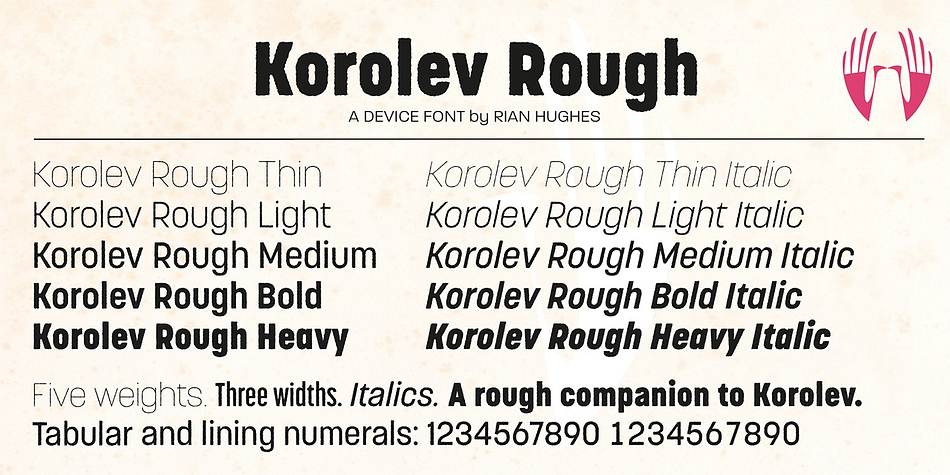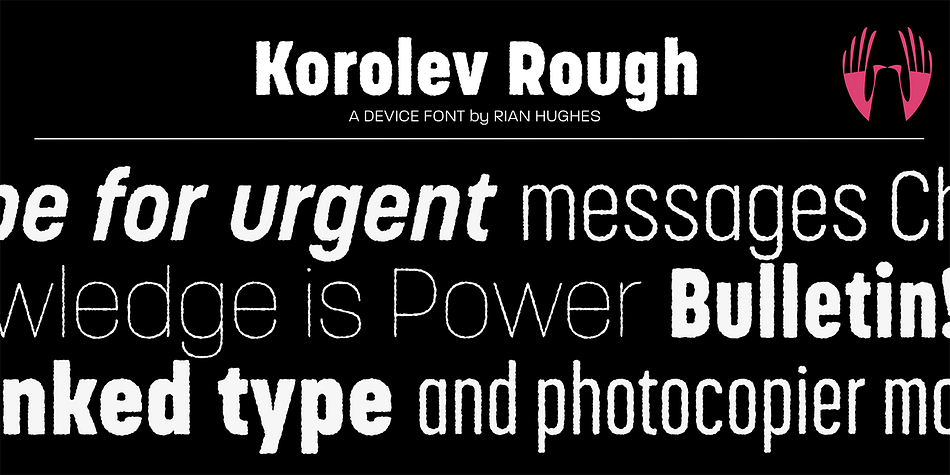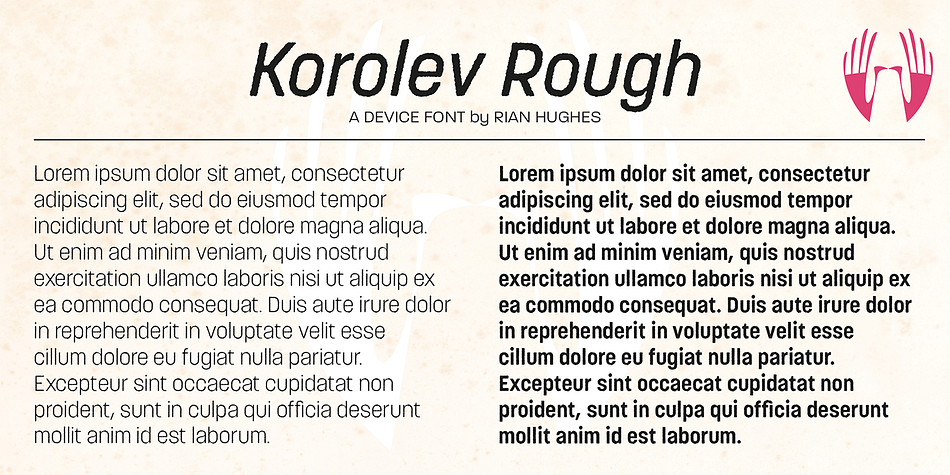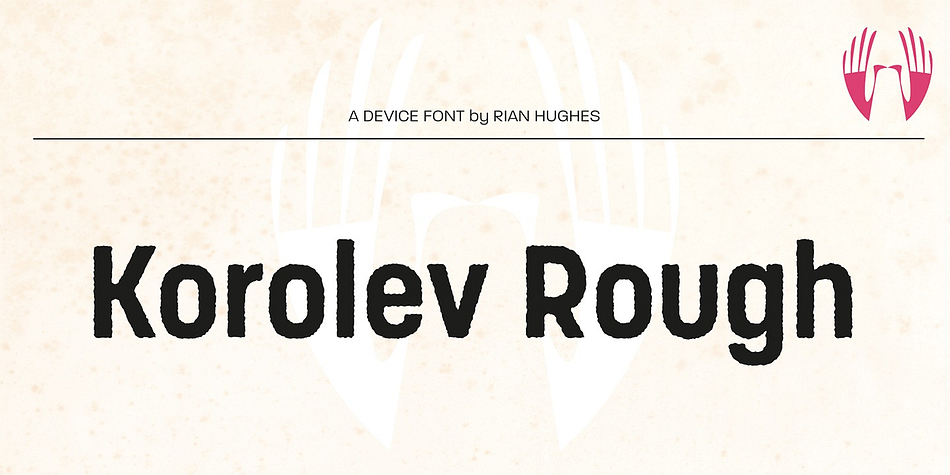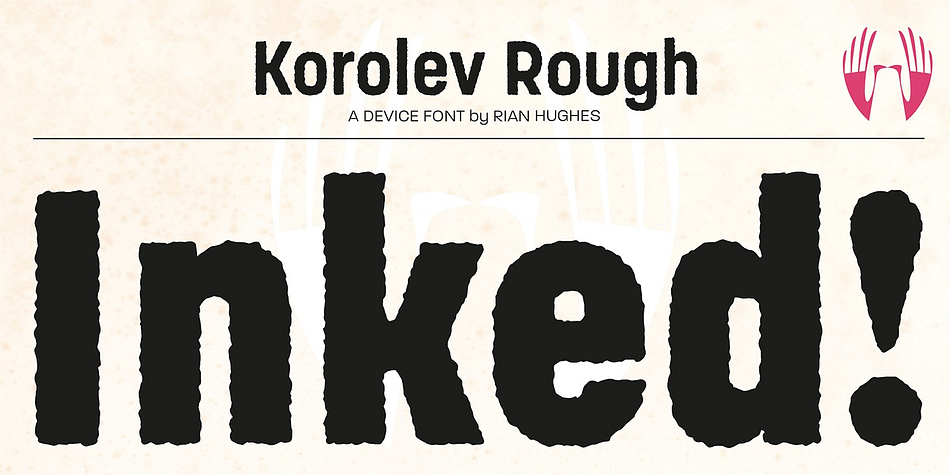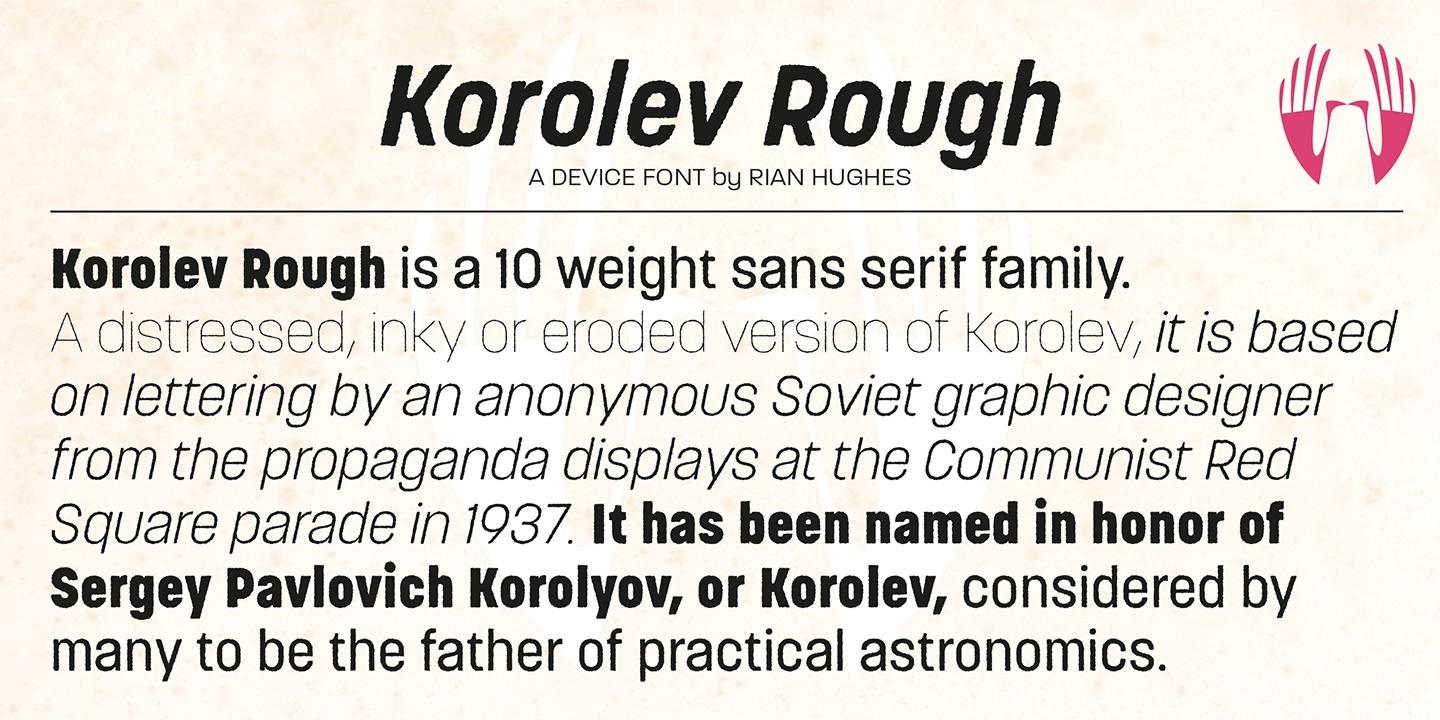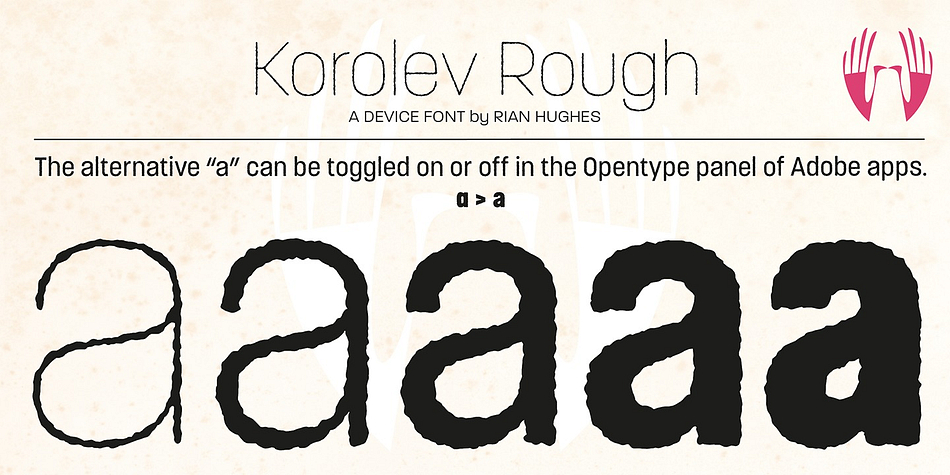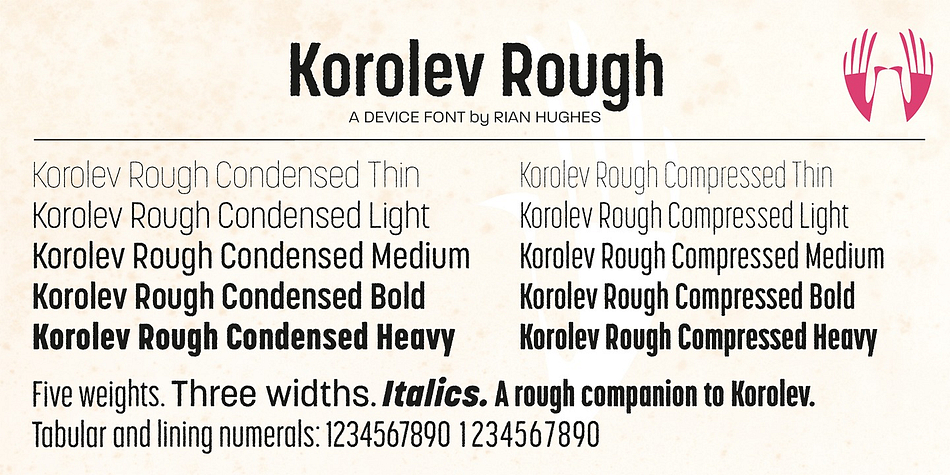
Designed by Rian Hughes, Korolev Rough is a display sans and grunge font family. This typeface has twenty styles and was published by Device.
Korolev Rough is a 20-weight addition to Korolev, the popular sans serif family based on lettering by an anonymous Soviet graphic designer from the propaganda displays at the Communist Red Square parade in 1937. It has been named in honor of Sergey Pavlovich Korolyov, or Korolev, considered by many to be the father of practical astronomics.
Every weight and style comes with an alternate double-story “a”.